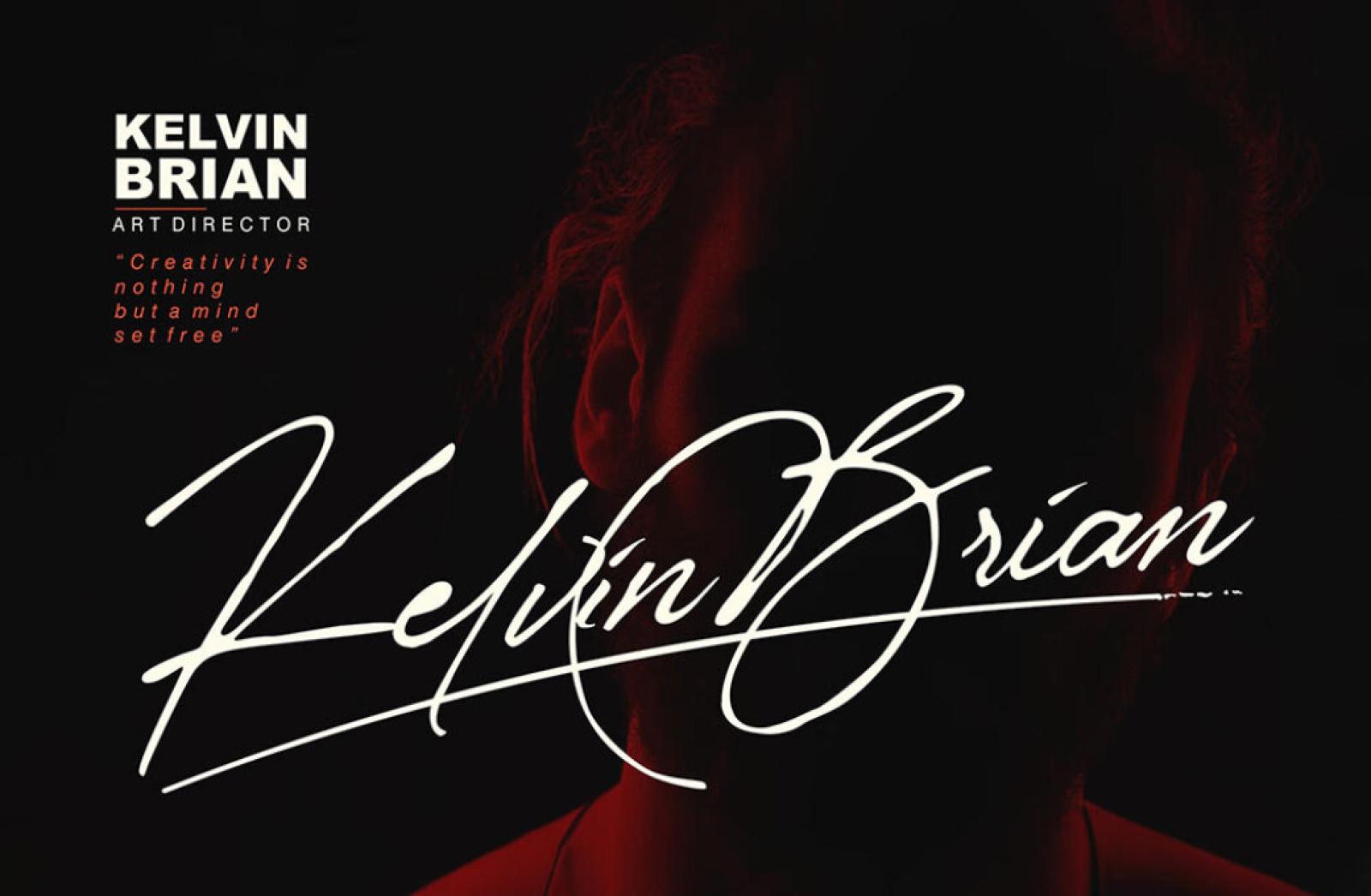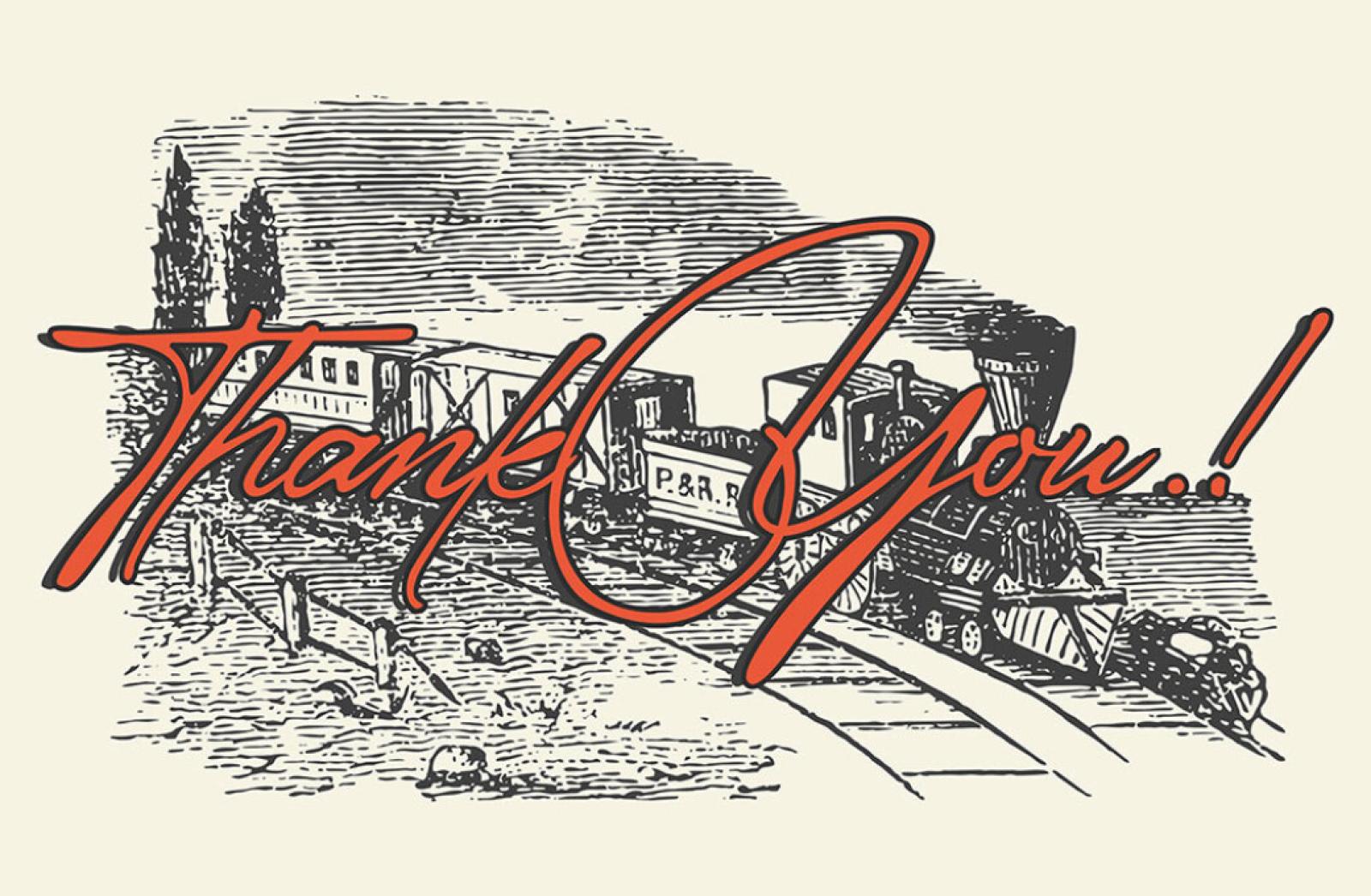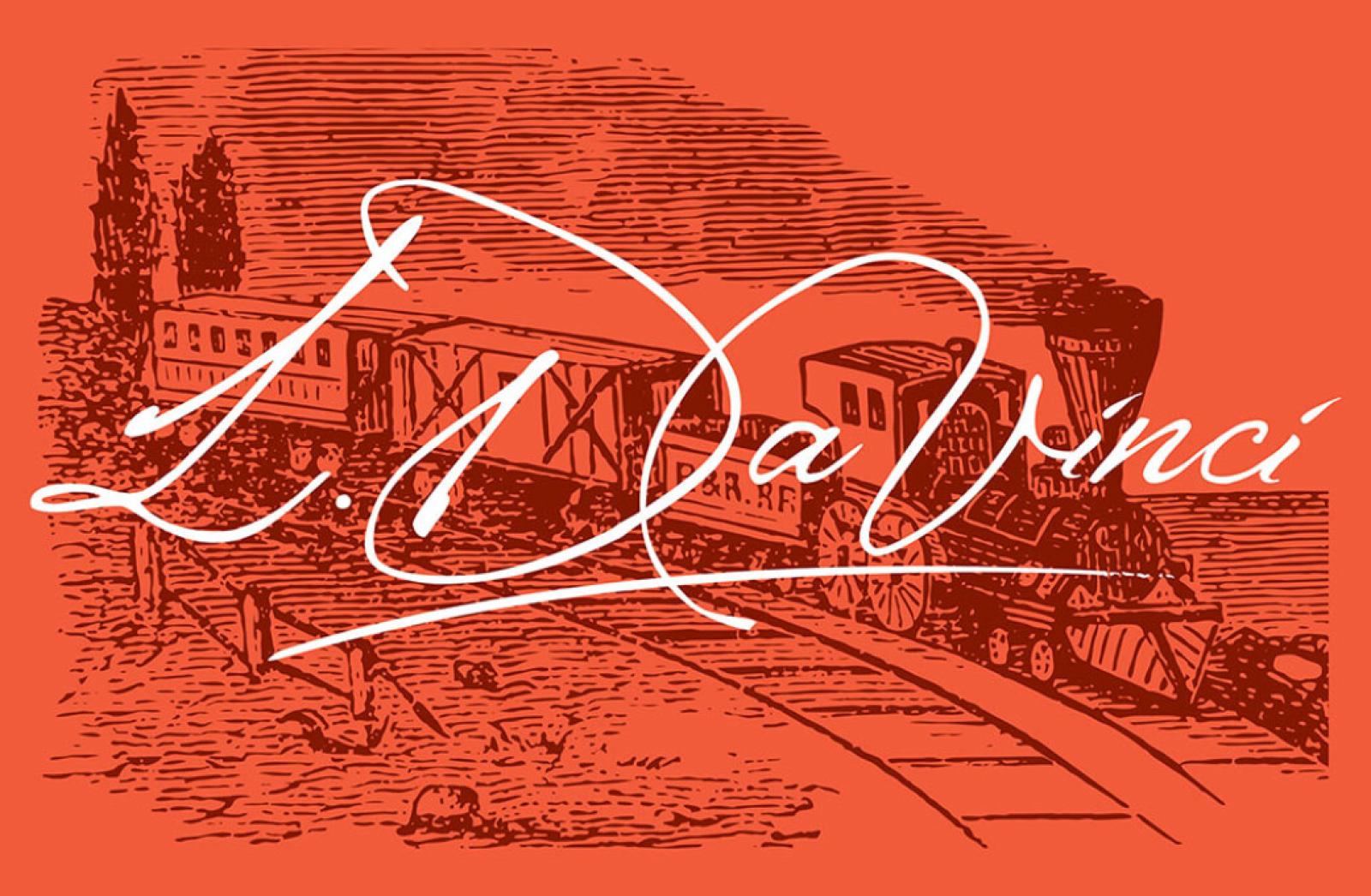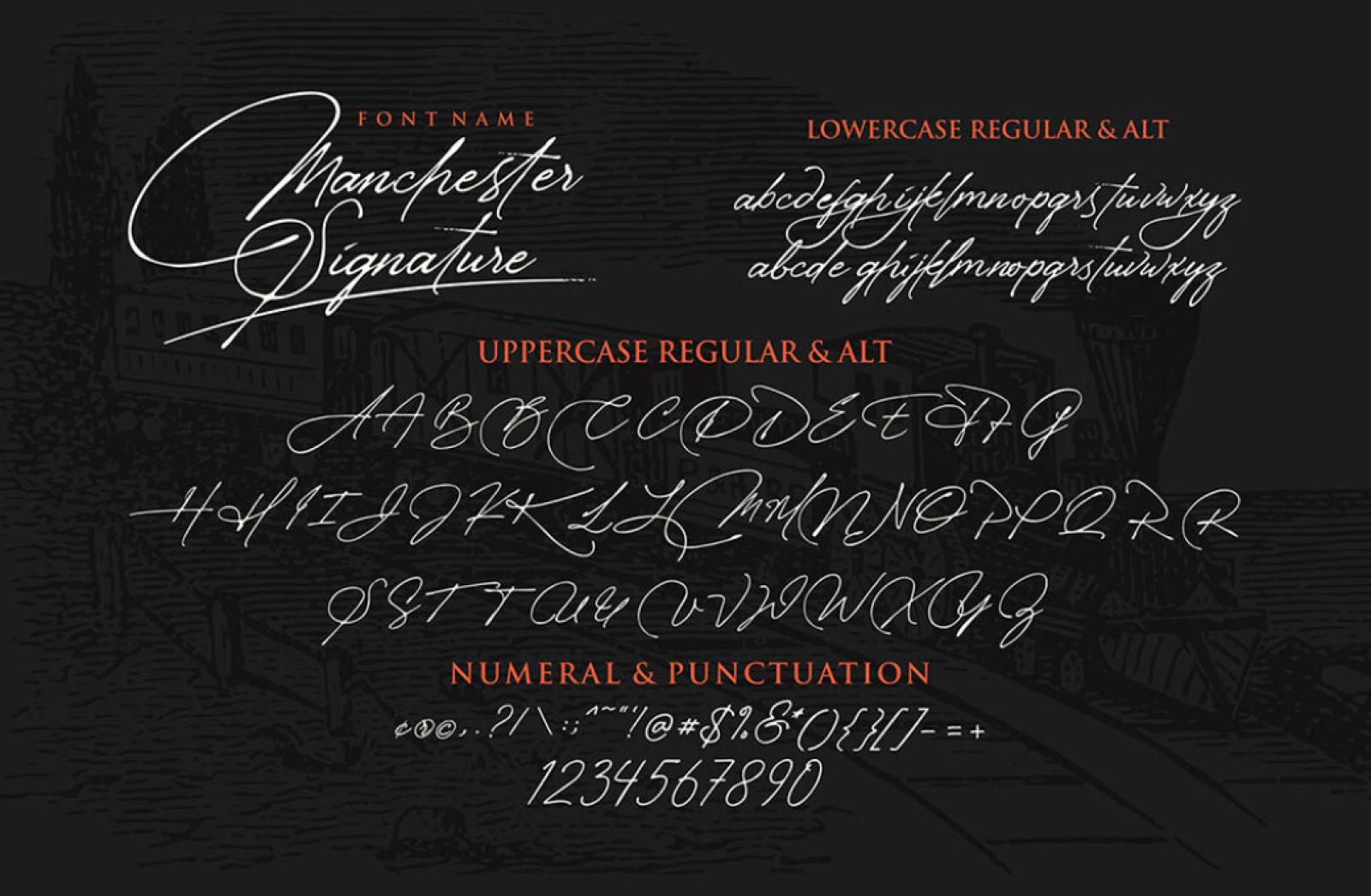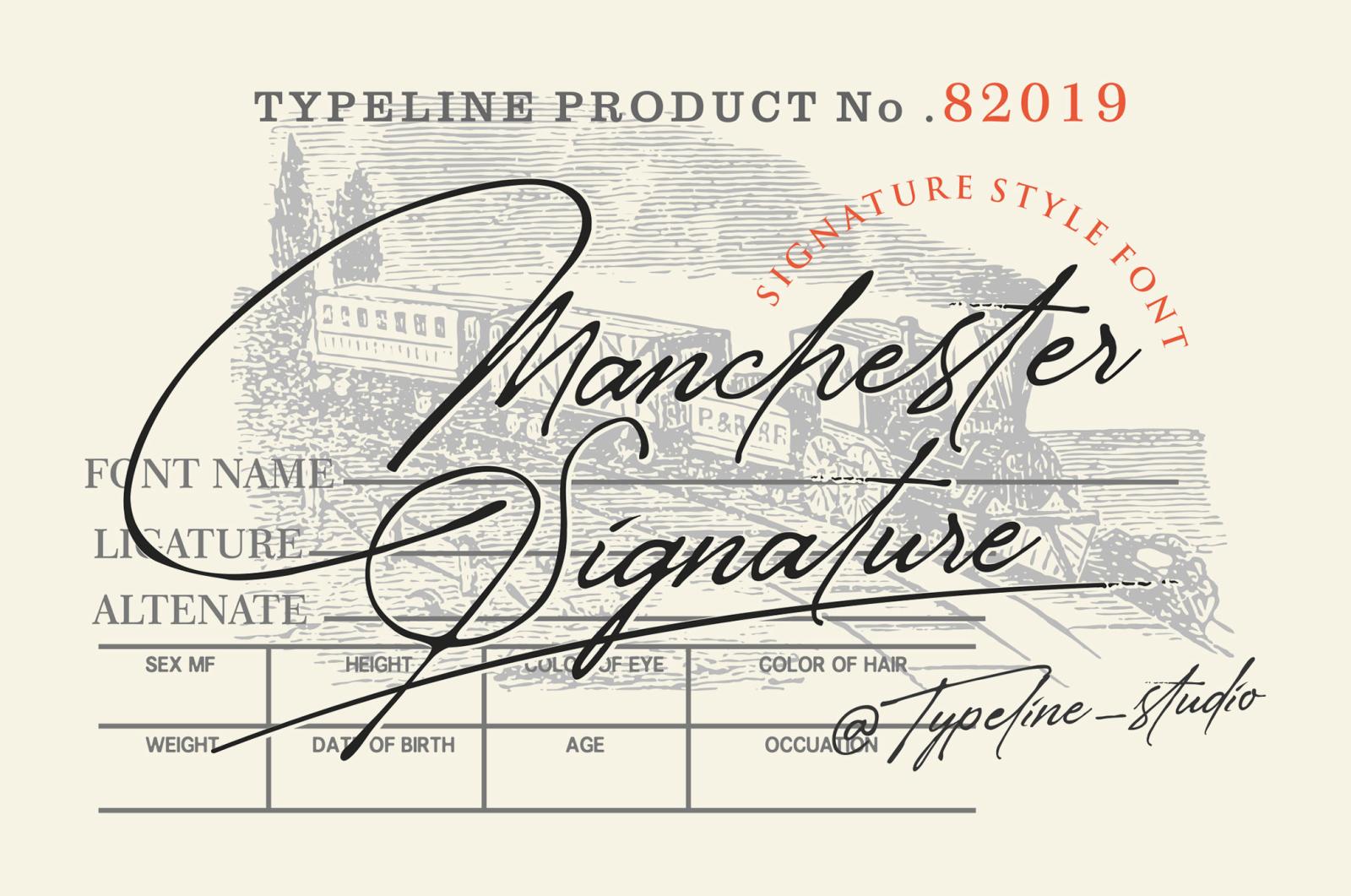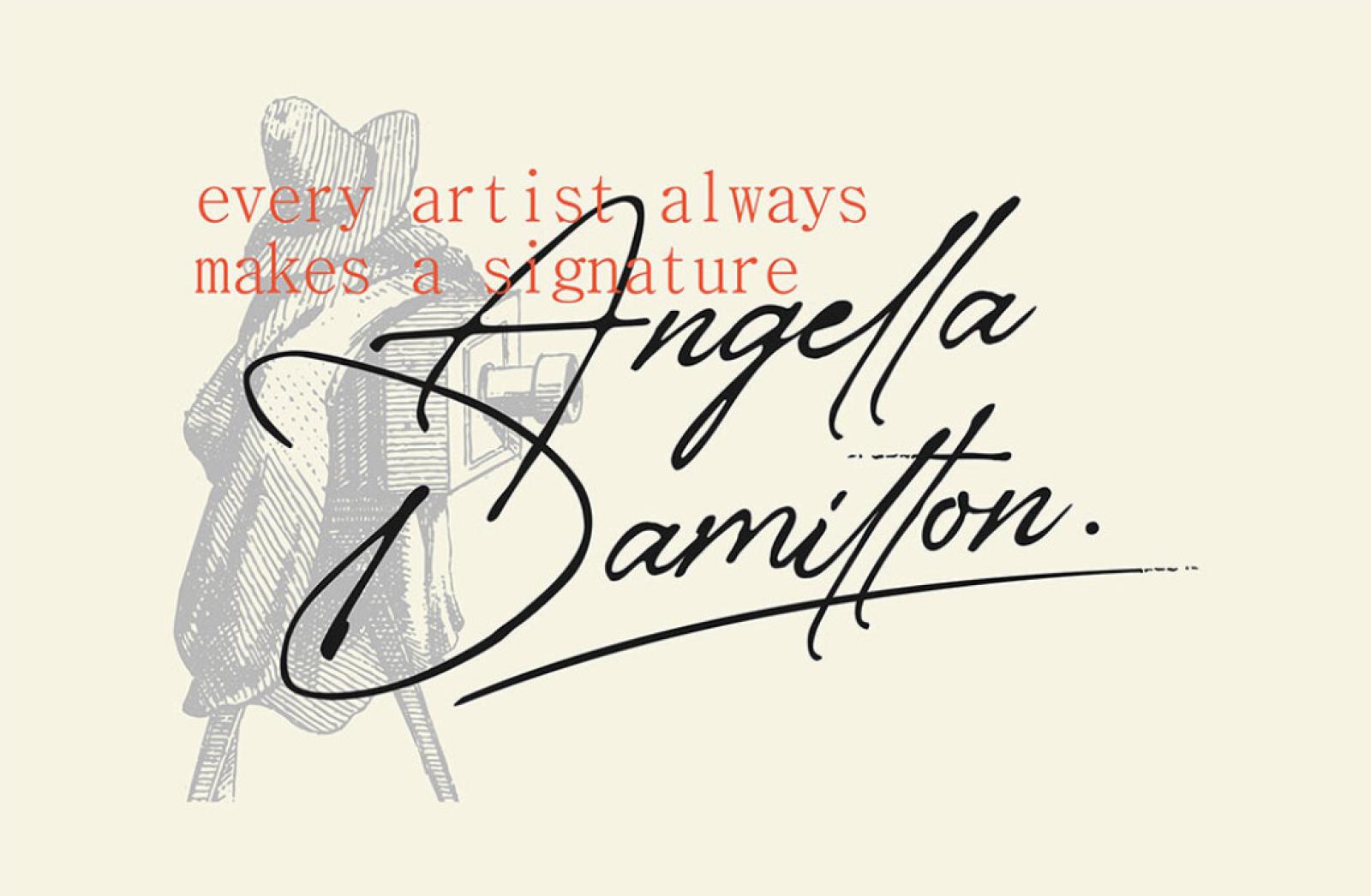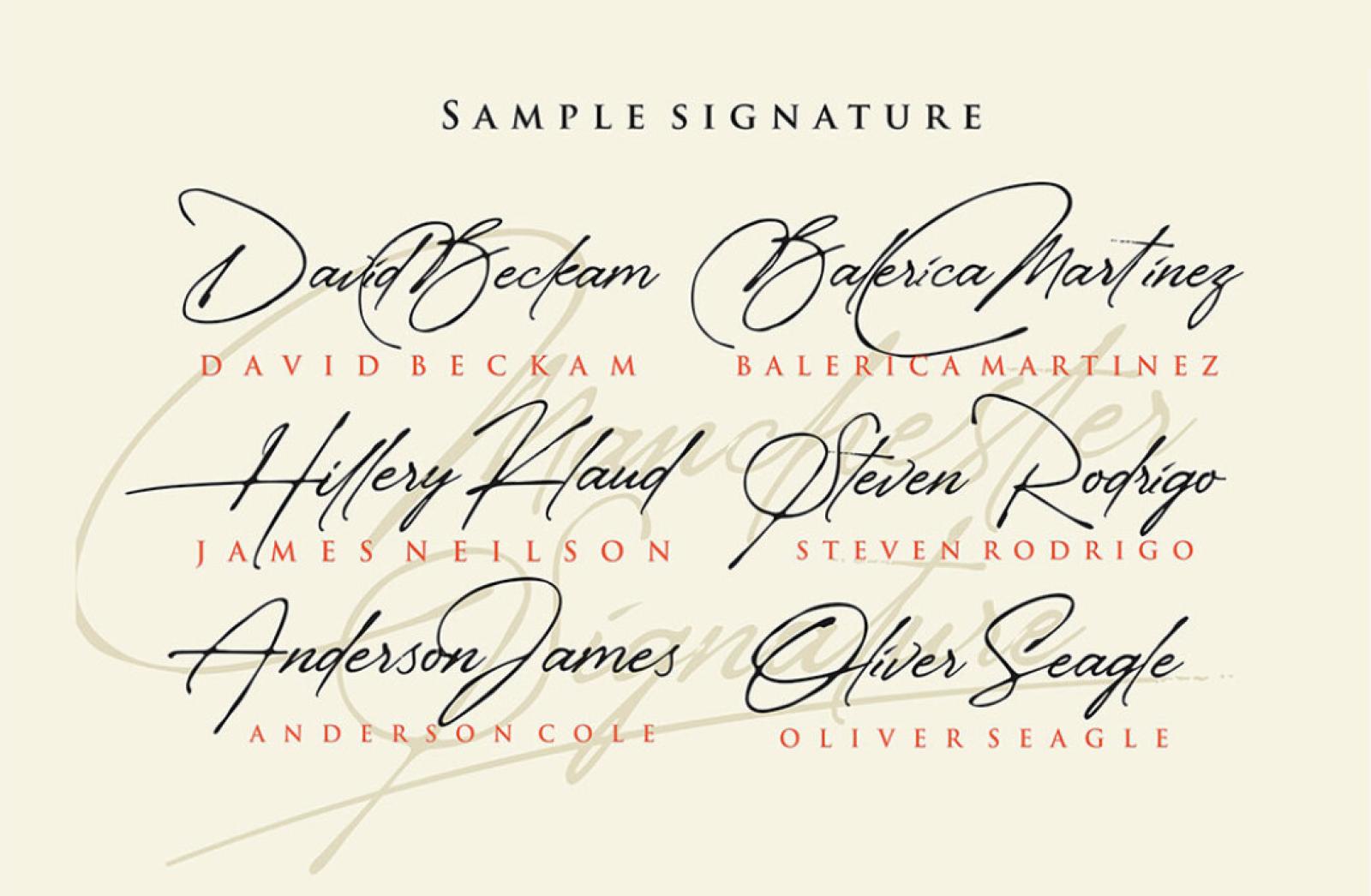
Manchester Signature Font
Exceptional handwriting transformed into the beautiful signature font is nothing less than an artistic miracle! Add a personal touch to your designs, and you'll see them thrive.
The abundance of bent letters is blindingly exalted, rich with aesthetics, and so much of elegance. Uppercase and lowercase, numerals everything here whispers about the light pen touch with which they were brought to paper then to your artboard. Including this signature font will chain the attention to your logotype, collage, photography, ad banner or any social media post.